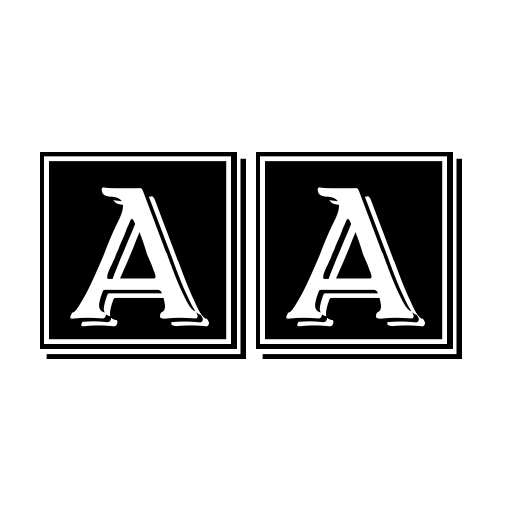
BoltonDropCaps is a decorative serif font featuring uppercase letters enclosed in bold square frames, giving it a strong, vintage appeal. The font combines playful yet elegant serif details with high stroke contrast and an outlined, dimensional style that makes each letter stand out as a bold display element. It’s ideal for eye-catching headlines, logos, and posters where a retro, artistic touch with a hint of sophistication is desired.
BoltonDropCaps Font
About BoltonDropCaps Font